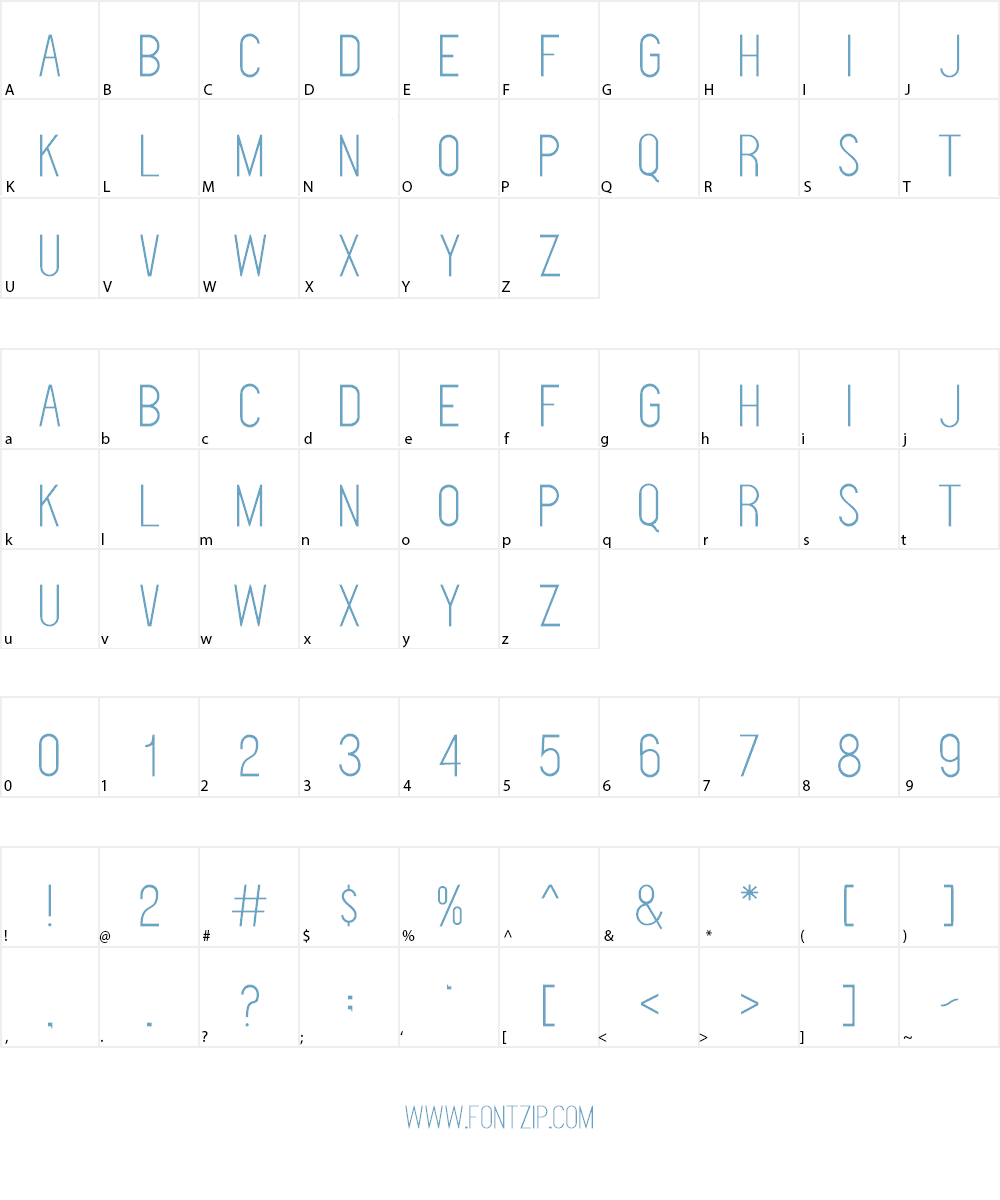
Deflagrate fonts with alternative character. very suitable as to make a design choice for magazines, packaging, branding , website header, posters, greeting cards, letterhead, and many more other creative project.
Deflagrate Light
Deflagrate Outline
Deflagrate Regular
Deflagrate Bold